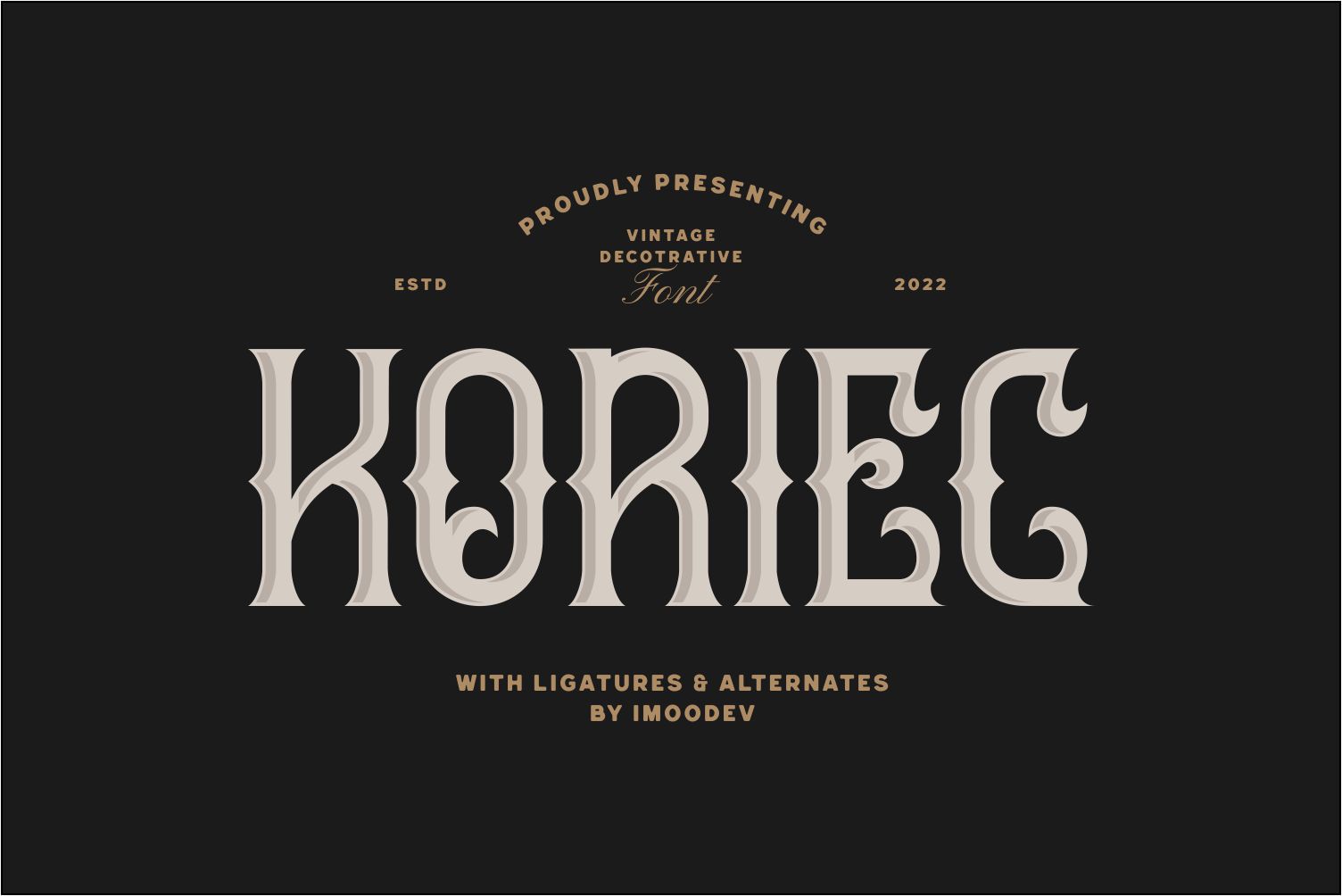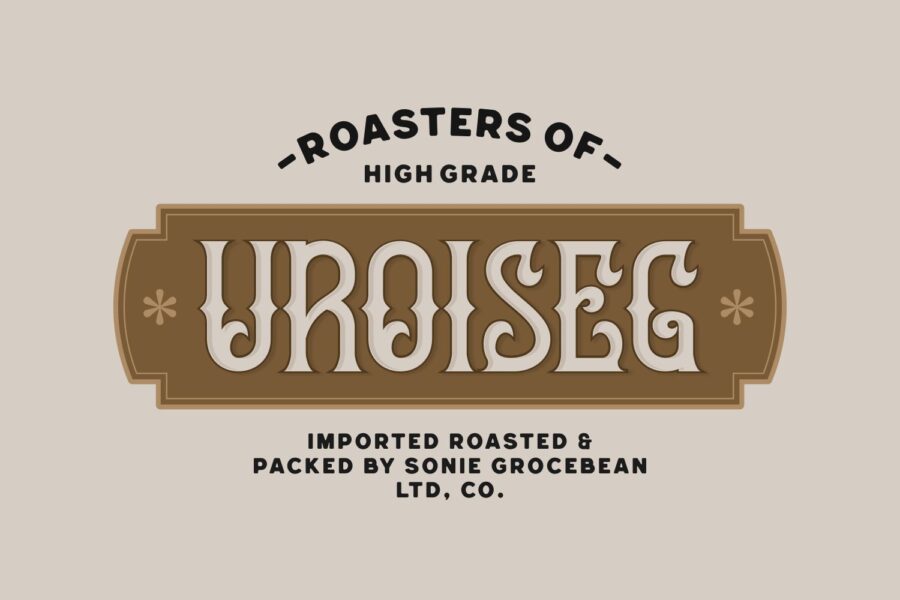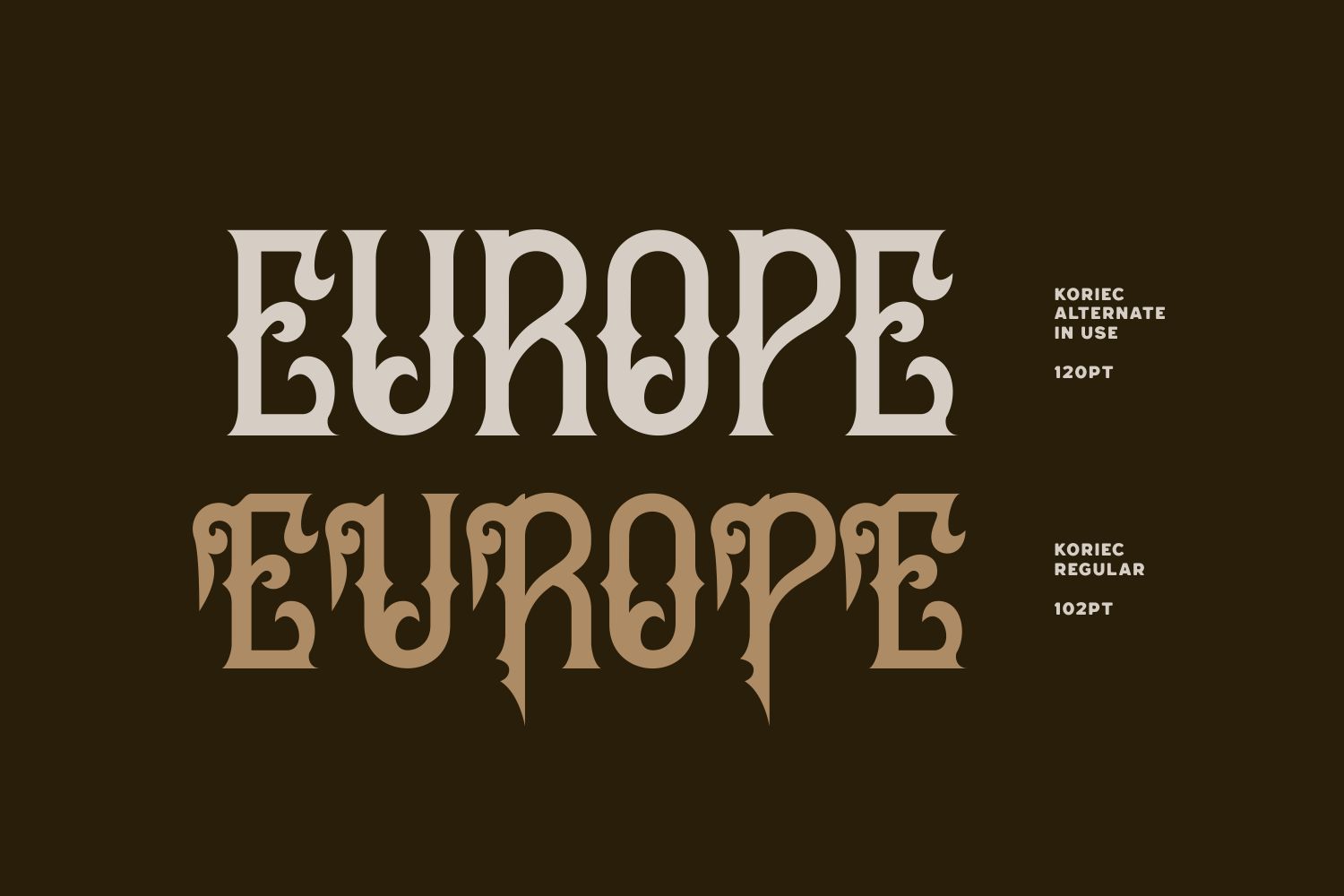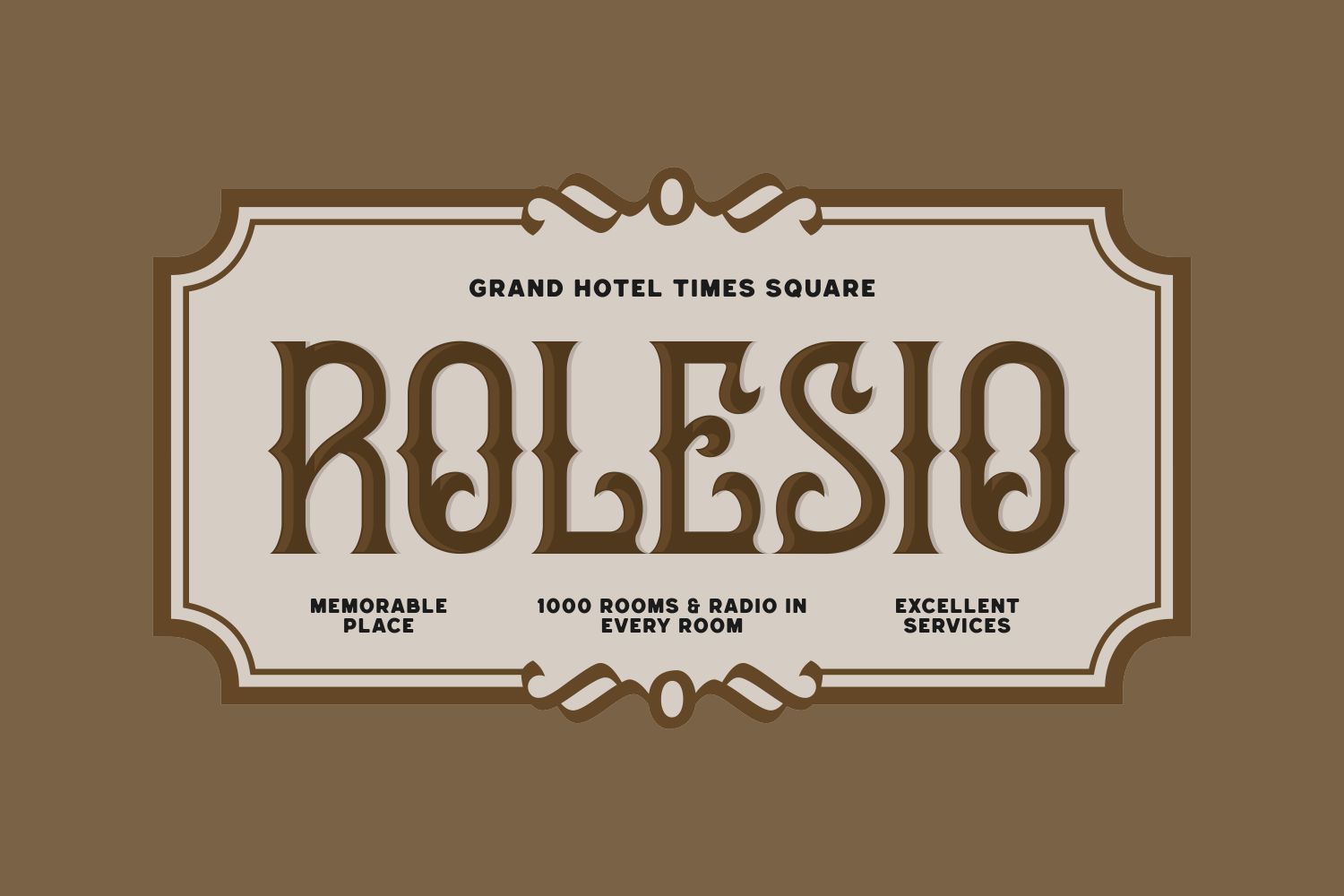
Koriec is a bold decorative vintage font crafted with striking ornamental details and dramatic curves. Its unique letterforms combine classic elegance with modern versatility, making it perfect for designs that need to stand out with personality. The font features sharp edges and smooth curves, offering a distinct balance between strength and artistic flair.
With stylistic alternates and ligatures, Koriec gives you the flexibility to create custom looks for branding, packaging, posters, signage, or editorial layouts. Its timeless decorative style evokes a sense of heritage while still being adaptable to contemporary projects, making it a great choice for both display and headline typography.
Koriec